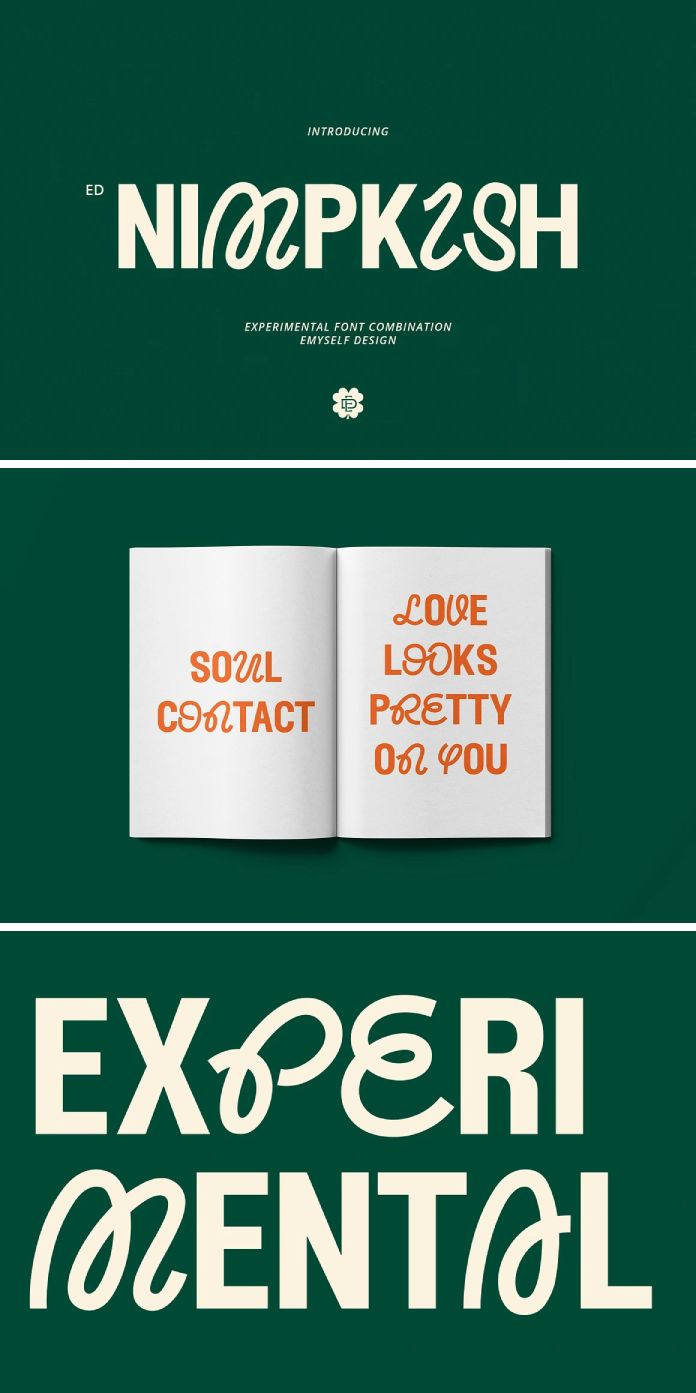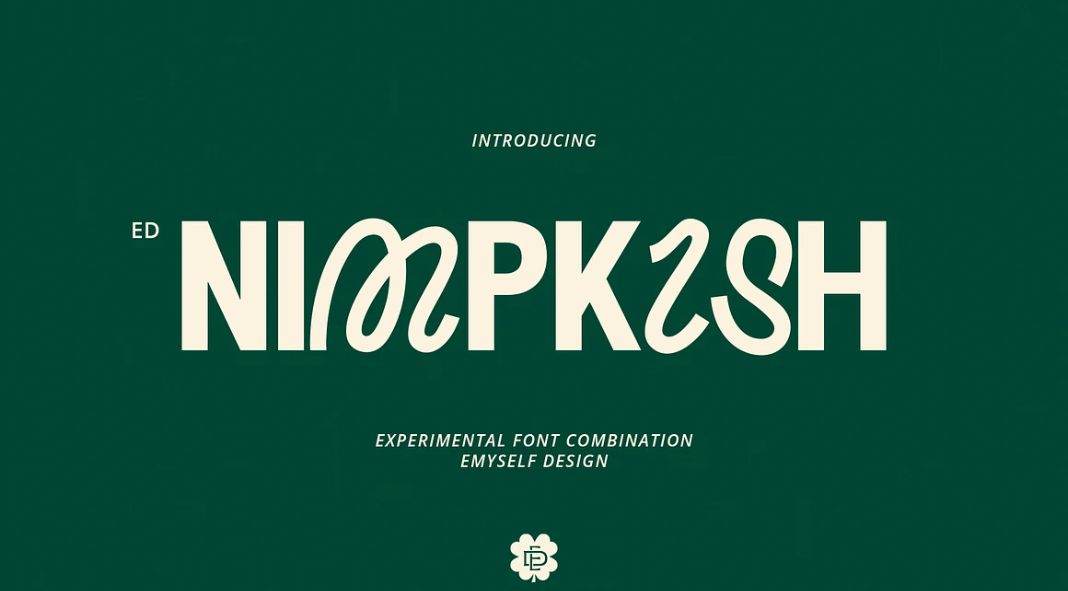
Unleash Typographic Alchemy with the ED Nimpkish Font Combo
Forget off-the-rack fonts. In the realm of design, where individuality reigns supreme, Emyself Design presents ED Nimpkish – a revolutionary typeface that transcends the boundaries of convention. This isn’t just a font; it’s a portal to a world of typographic alchemy, where contrasting styles coalesce into a captivating aesthetic.
ED Nimpkish is an experimental combination typeface, meticulously crafted by fusing two distinct typographic personalities. This daring approach yields a font brimming with character, where the elegance of display uppercase meets the clean lines of a sans-serif lowercase. The result? A visually striking harmony that injects instant personality into your designs.
But ED Nimpkish isn’t just about aesthetics. Emyself Design has meticulously equipped it with features designed to empower your creativity. Explore a world of:
- Alternative Characters: Add depth and intrigue to your designs with a variety of character options.
- Ligatures: Create a seamless, sophisticated flow with expertly crafted ligatures.
- Multi-Language Support: Craft designs that resonate globally with exceptional multi-language support.
With a total of 357 glyphs, ED Nimpkish offers the versatility to tackle a multitude of design challenges. Imagine crafting impactful posters, designing logos that leave a lasting impression, or elevating your social media presence with captivating typography. ED Nimpkish is equally at home within the pages of a book or magazine, adding a touch of distinction to your publications.
Beyond the Basics: A Stylistic Playground
Emyself Design hasn’t stopped at the essentials. ED Nimpkish unlocks a treasure trove of creative possibilities with the inclusion of a stylistic set and ligatures. Experiment with different character variations and explore the power of ligatures to create a truly bespoke typographic experience.
ED Nimpkish is more than just a font; it’s a catalyst for design innovation. It’s an invitation to push boundaries, experiment with contrasting styles, and forge a typographic identity that’s uniquely yours. So, are you ready to unleash the power of typographic alchemy? Dive into the world of ED Nimpkish and discover the limitless potential it holds for your next design project.